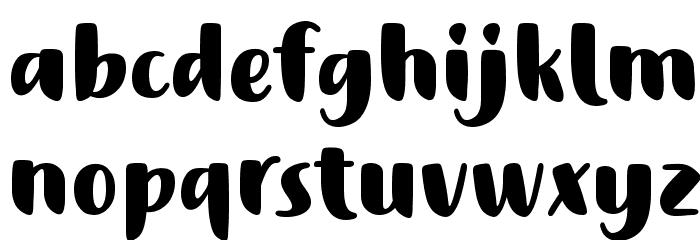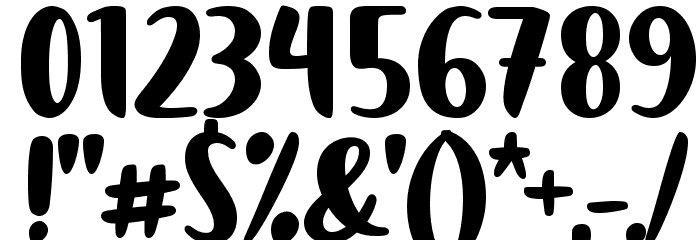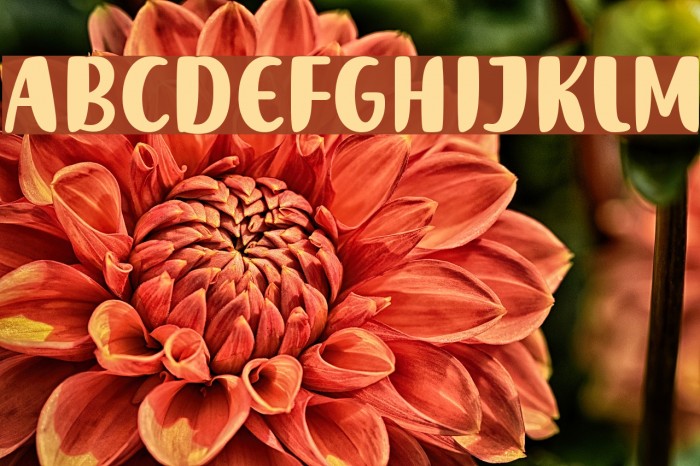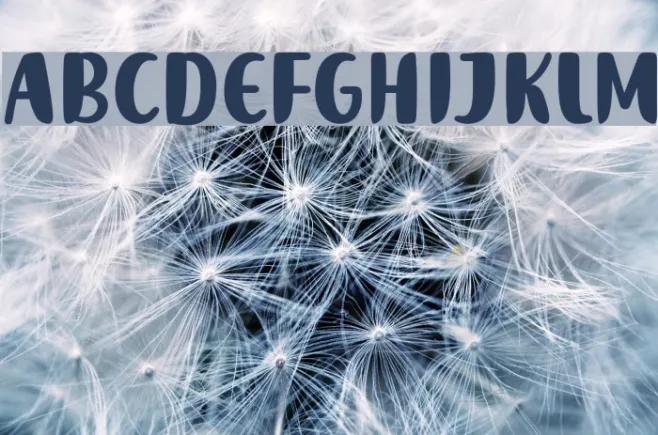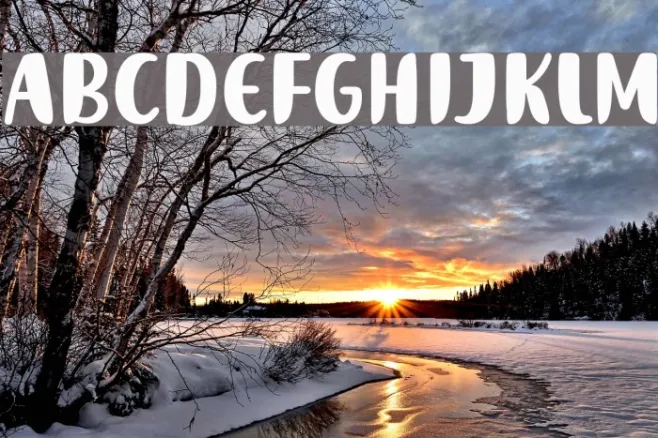
Sumber Jaya Font
This font features a bold and playful style with rounded edges and a smooth flow, giving it a friendly and approachable appearance. The characters are thick and slightly condensed, creating a strong visual impact. The uppercase letters are uniform in height, while the lowercase letters maintain a consistent baseline, adding to the cohesive look. The numerals are similarly bold, ensuring readability. Special characters are designed with the same playful curves, making them blend seamlessly with the rest of the font. This style is ideal for projects that require a fun and engaging aesthetic.
A bold, playful font with rounded edges and a friendly appearance.
- Proposed Projects: Ideal for children's books, playful branding, posters, and social media graphics.
- Overall Style: Playful